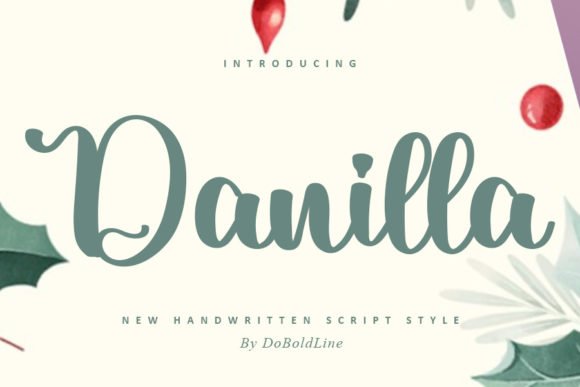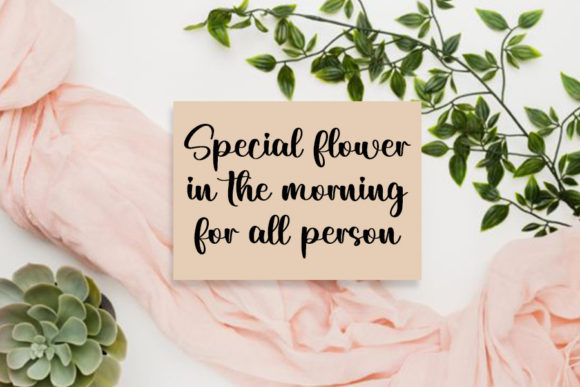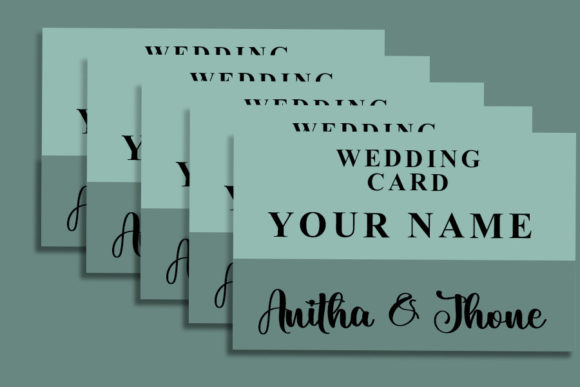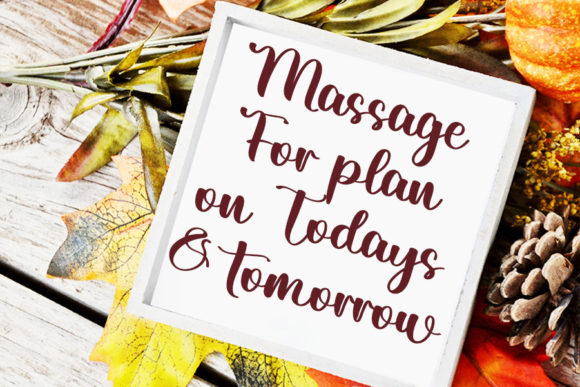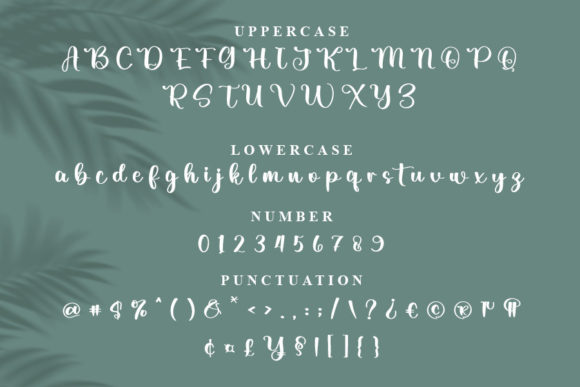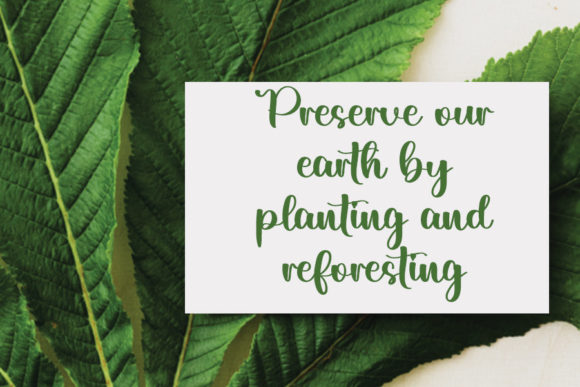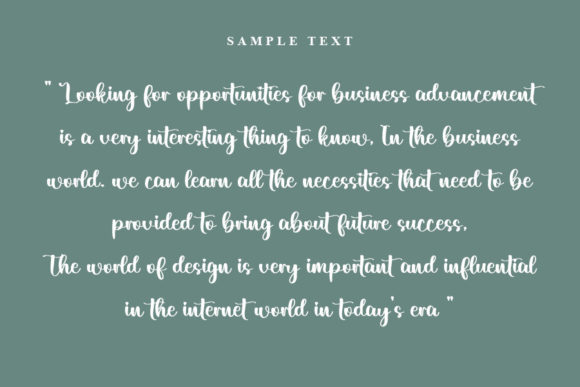
Discover the Timeless Elegance of Danilla Font
As a designer, there’s nothing quite like the thrill of bringing a project to life. You’ve poured your heart and soul into the concept, and now it’s time to bring it to the page. But sometimes, the perfect font can be the difference between a good design and a great one. That’s where Danilla Font comes in – a stylish handwritten font that exudes a contemporary atmosphere and impeccable form, inspired by timeless classic calligraphy.
With its balanced and varied design, Danilla Font is the perfect choice for enhancing the beauty of your projects. Whether you’re working on a branding campaign, a website, or a print ad, this font is sure to add a touch of sophistication and elegance. As a designer, you know how valuable a versatile and high-quality font can be – and that’s exactly what Danilla Font offers.
- Unique Characteristics: The font features a unique blend of modern and vintage elements, with a distinctive italic style that adds a touch of sophistication.
- Character Set: The font includes a comprehensive set of characters, including punctuation marks, symbols, and ligatures.
Designer Review: Danilla Font
Overall, I’m quite impressed with the Danilla Font. It’s a beautiful, elegant script font that works well for various design applications, from logos to body text. ✨ The font’s flowing lines and subtle flourishes give it a sophisticated look that’s hard to resist.
One of the strengths of Danilla Font is its legibility. It’s easy to read, even at smaller font sizes, making it perfect for digital designs where text may be scaled up or down. ✨ The font also comes in a range of weights, from light to bold, allowing for a high degree of customization.
- ⚠️ Limited language support: Danilla Font may not be compatible with all languages, particularly those with complex scripts.
- ⚠️ Not ideal for bold or headline text: While Danilla Font has bold weights, it’s not the best choice for extremely large or bold text, as it can lose its elegance.
Overall, I think Danilla Font is a great addition to any designer’s toolkit. Its elegance and legibility make it perfect for a wide range of design projects. While it has some limitations, these are relatively minor and can be worked around with some careful planning. I’d definitely recommend Danilla Font to anyone looking for a high-quality script font.
For the best results, use Danilla font in headings and titles to add a touch of elegance and sophistication. Pair it with a clean and simple background to let the font be the focal point. Experiment with different font sizes and colors to create visual interest.
Danilla font is perfect for:
- Editorial and publishing projects